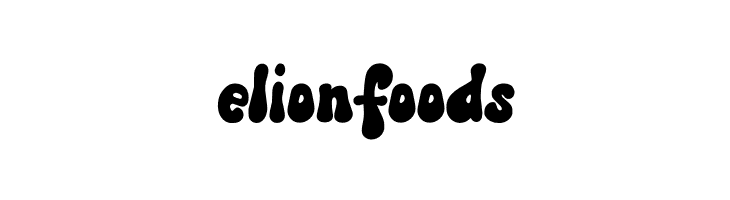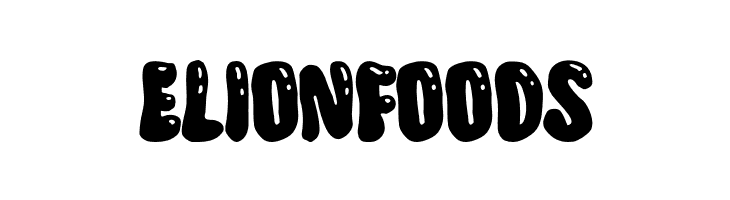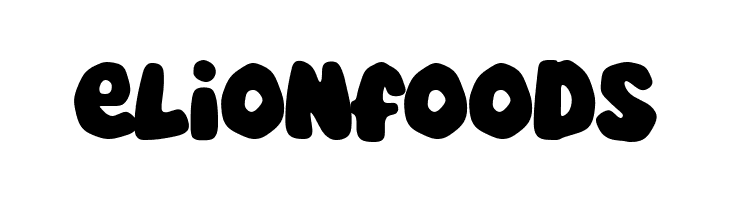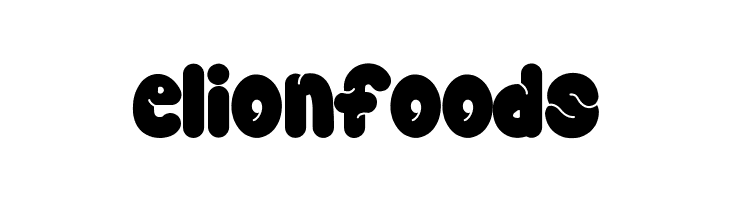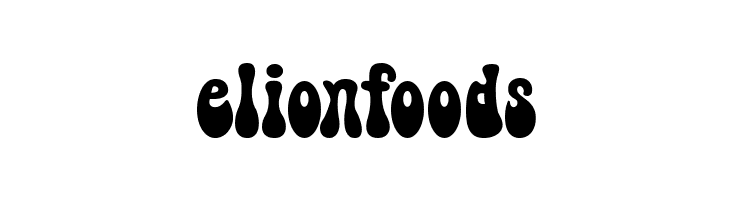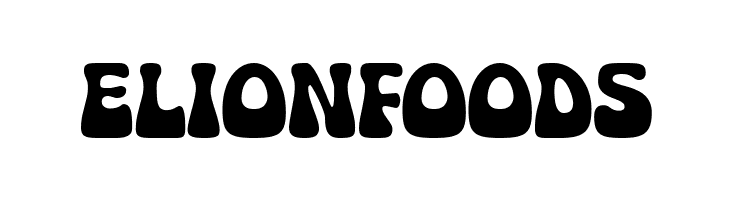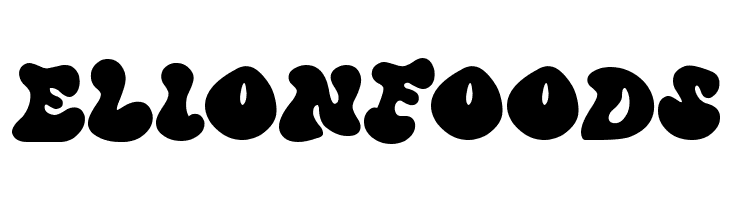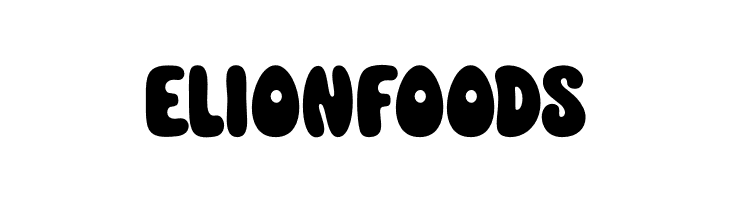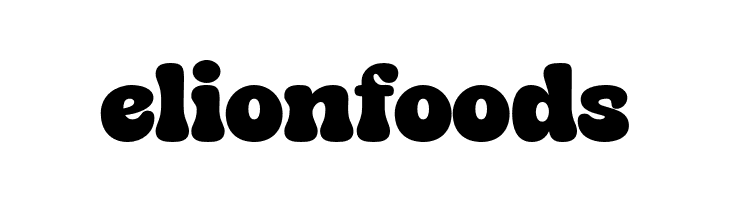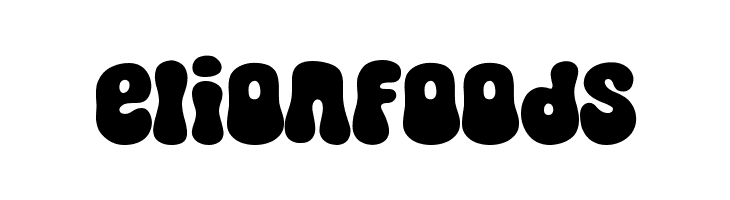
A bold, playful font with rounded, bubbly characters and minimal contrast.
A playful, bold font with bubbly, rounded characters.
A bold, playful font with rounded, bubbly characters perfect for fun and whimsical designs.
A bold, playful typeface with rounded, bubbly characters.
A bold, playful font with a bubbly, liquid-like appearance.
A bold, playful font with rounded, bubbly characters ideal for fun designs.
A bold, playful font with rounded, bubbly characters and a retro vibe.
A bold, playful font with rounded, thick strokes and a bubbly appearance.
A bold, playful font with rounded, bubbly strokes.
A bold, playful font with rounded, bubbly characters and a retro feel.